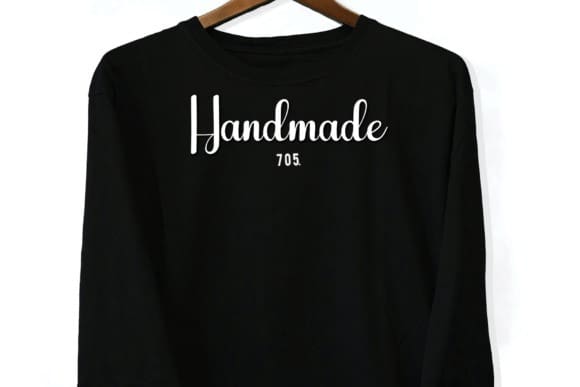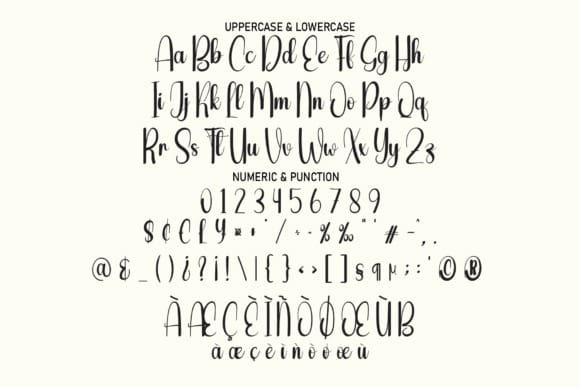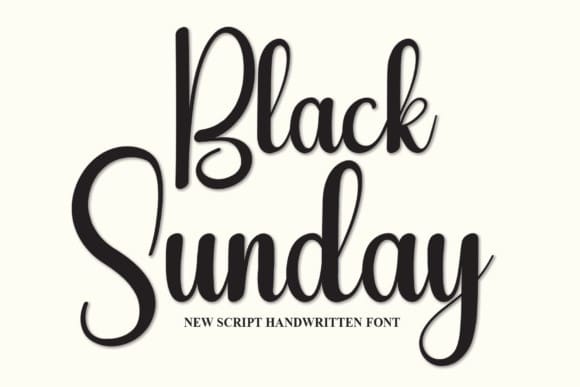
Black Sunday Font
Black Sunday Font, is a sweet and friendly handwritten font. Its natural and unique style makes it incredibly fitting to a large pool of designs. The only limit is your imagination!